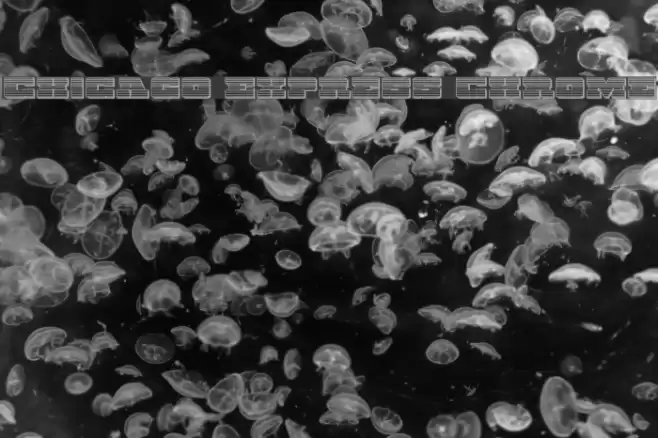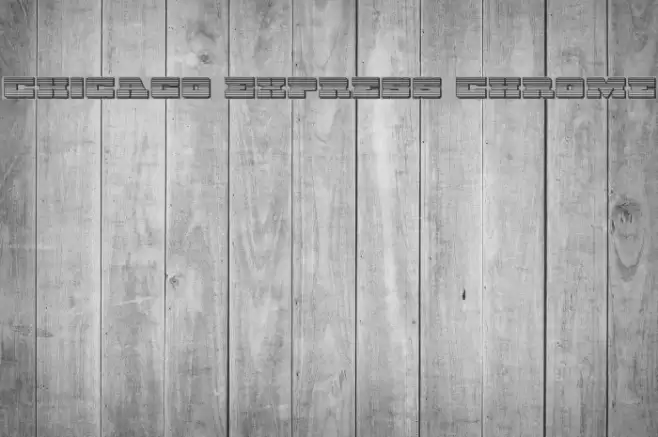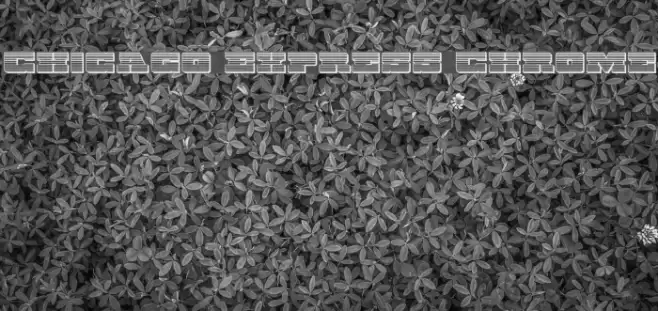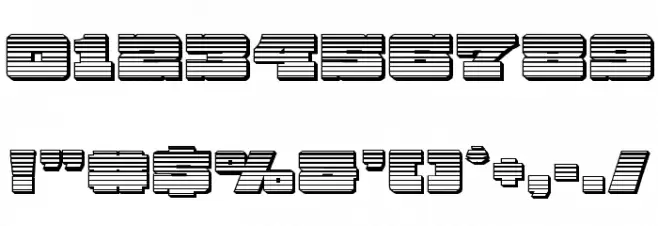
Chicago Express Chrome Font
Chicago Express Chrome Description
This font features a bold, geometric design with a distinct chrome-like appearance. Each character is constructed with multiple horizontal lines, creating a layered effect that gives a sense of depth and dimension. The uppercase and lowercase letters maintain a consistent width, contributing to a uniform look. The numerals and special characters follow the same design principles, ensuring cohesion across all glyphs. The font's style is reminiscent of retro-futuristic aesthetics, making it ideal for projects that require a bold and eye-catching typeface.
A bold, geometric font with a chrome-like, layered design from Uncategorized fonts.
- Proposed Projects: Ideal for retro-themed posters, video game titles, and branding that requires a futuristic or industrial look.
- Overall Style: Retro-Futuristic